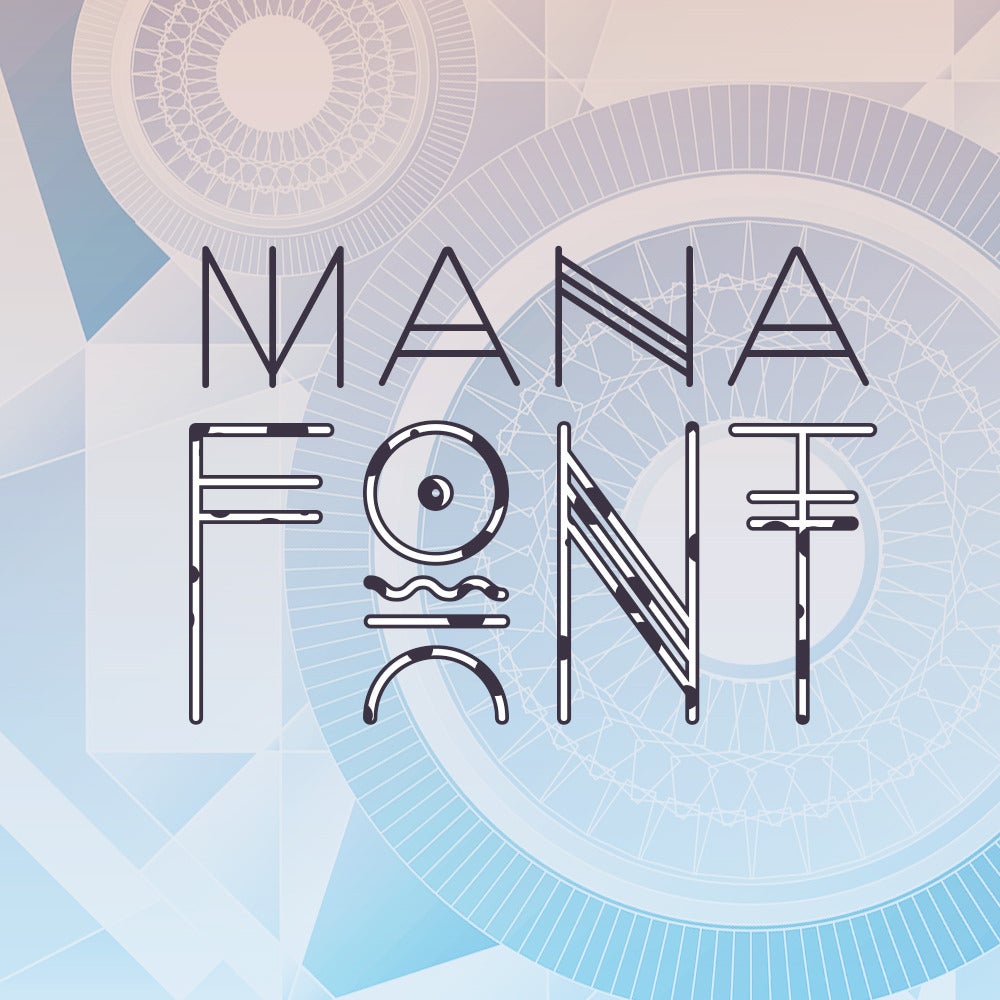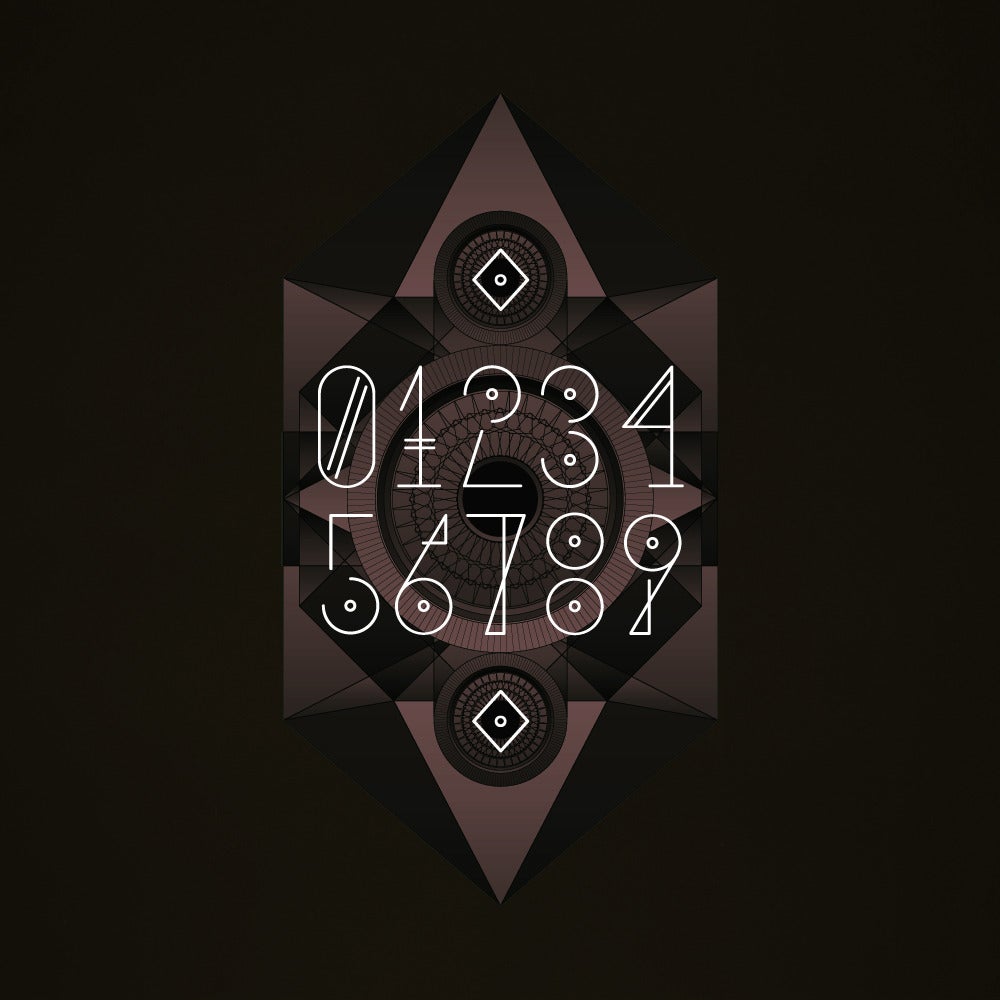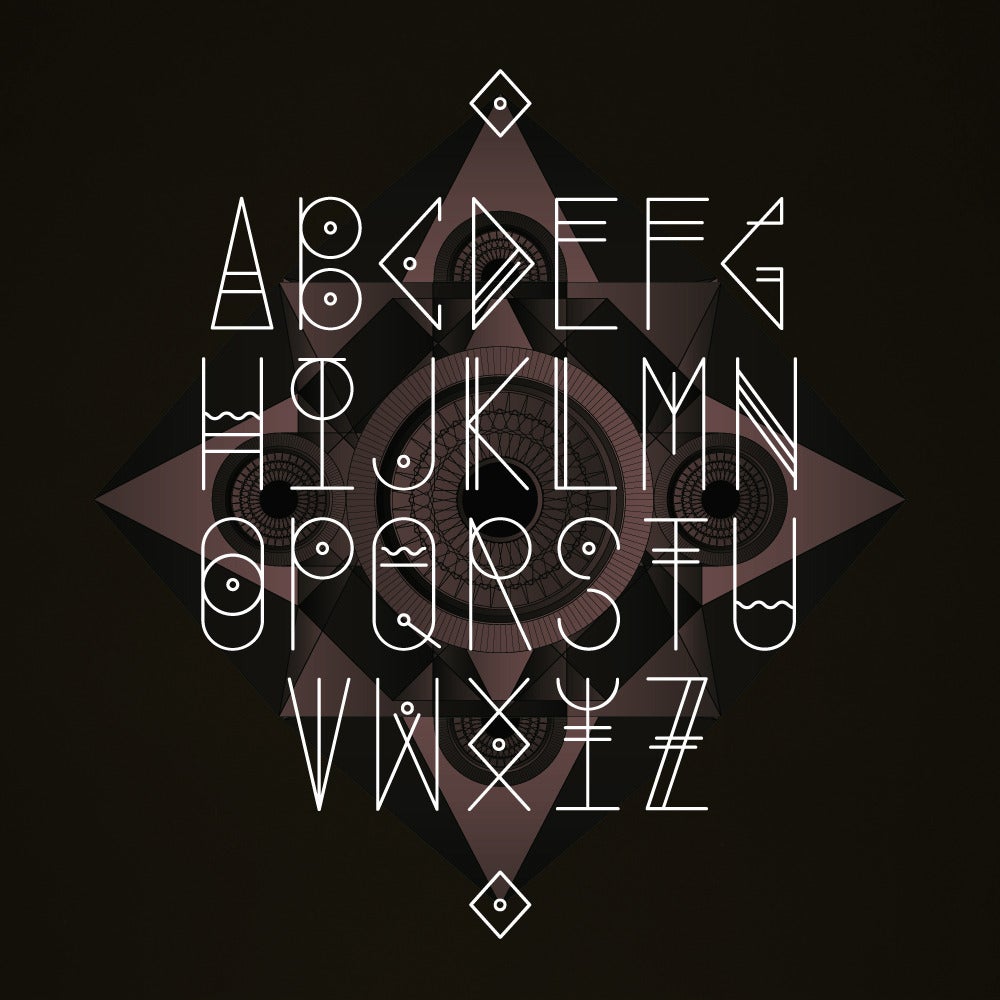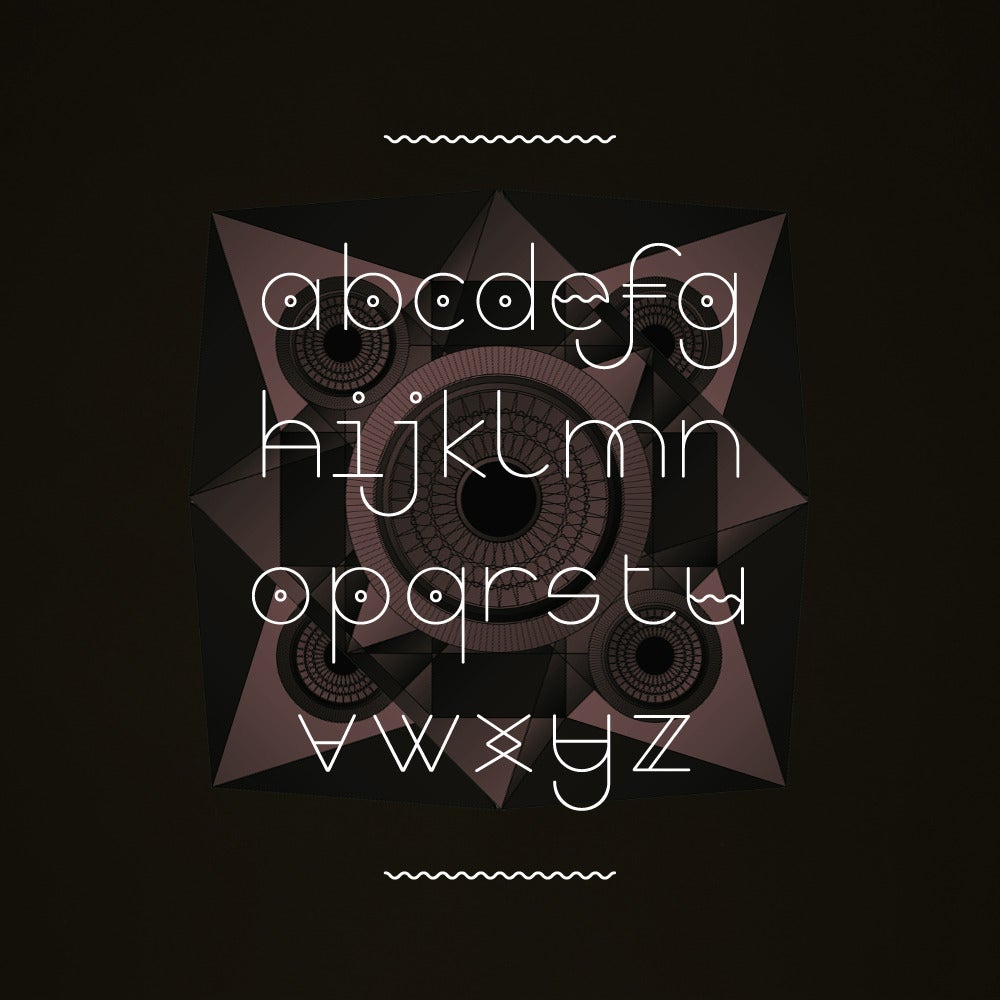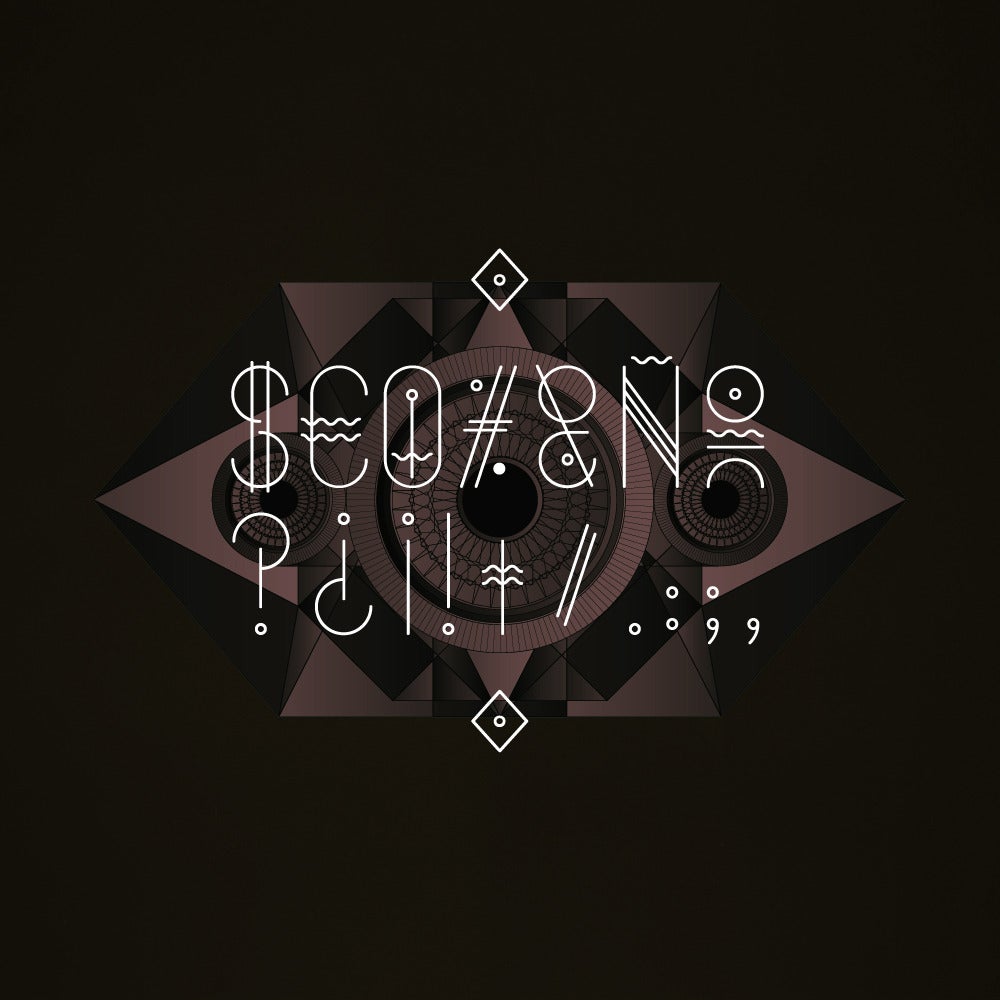
MANA UT
A commissioned display font designed with Snack! studio from Barcelona for the visuals of mexican band Mana in the late 2011. Finally used on their live shows on the last tour around South America and USA.